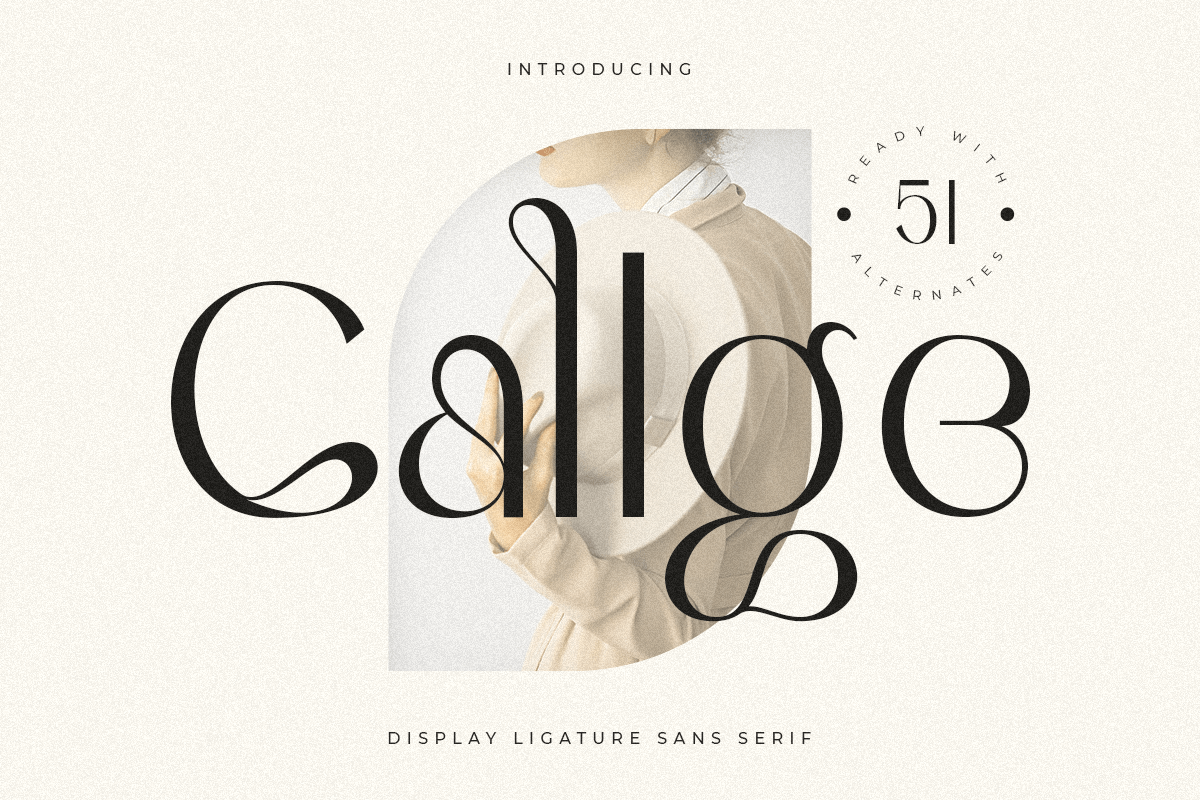
Callge
-Display Ligature Sans Serif
Callge
An Unique Modern Display Font that we created special for Elegant and Classy branding needs, with extra characters alternate in unique shape will be ready to add value of your brand. It so nice to leverage designer or product owner that need solutions to make their design look more classy and modern. And specially for this font, We prepared any alternate characters to help you create unlimited variations for your creative needs.